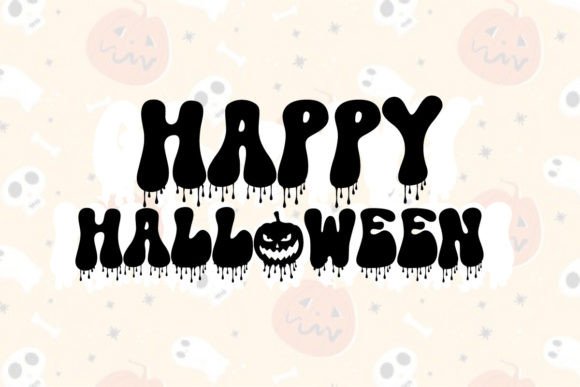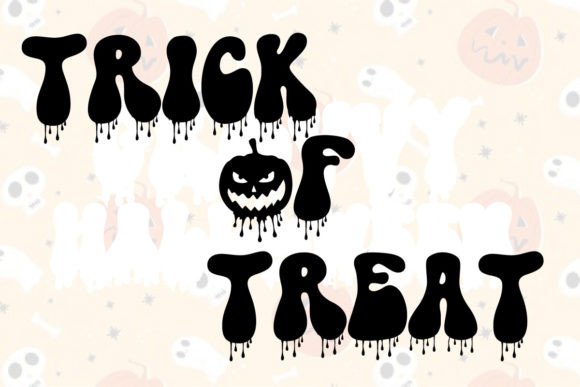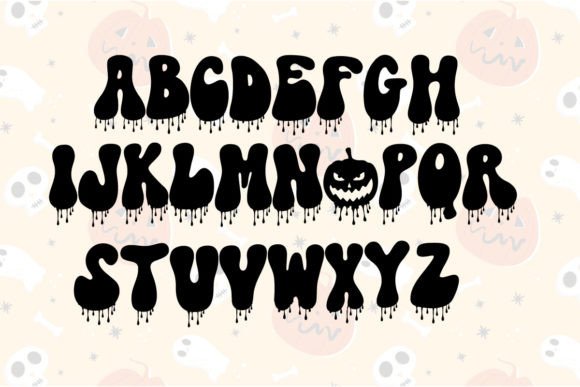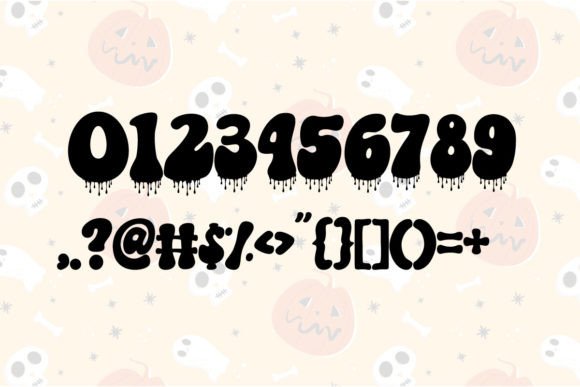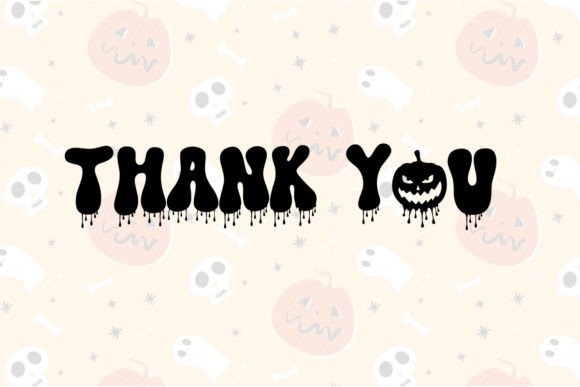
Introduction to Groovy Halloween Font
Groovy Halloween font with a dripping style.
Fall for its ravishing style just in time to celebrate Halloween, Perfect for circuit projects, shirts, retro designs, Halloween invitations, mugs, stickers, playful quotes, creating posters, logos, greeting cards, packaging, decorating the illustration and so much more .
Groovy Halloween Font offers exceptional quality and versatility, making it a valuable addition to your design toolkit. Whether you’re creating for personal projects or commercial use, Groovy Halloween Font delivers professional results.